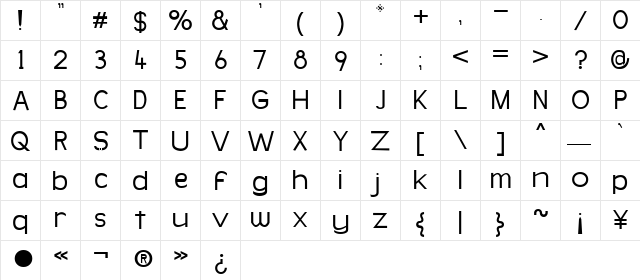
Simpleman Regular Font Preview
Simpleman Regular
Design Context for Simpleman Typeface
Simpleman offers clean, dependable letterforms without strong stylistic allegiance, making it a practical choice for designers who need flexibility.
Pro Tip: Use Simpleman in both headline and body roles to test its range before committing to a single application.